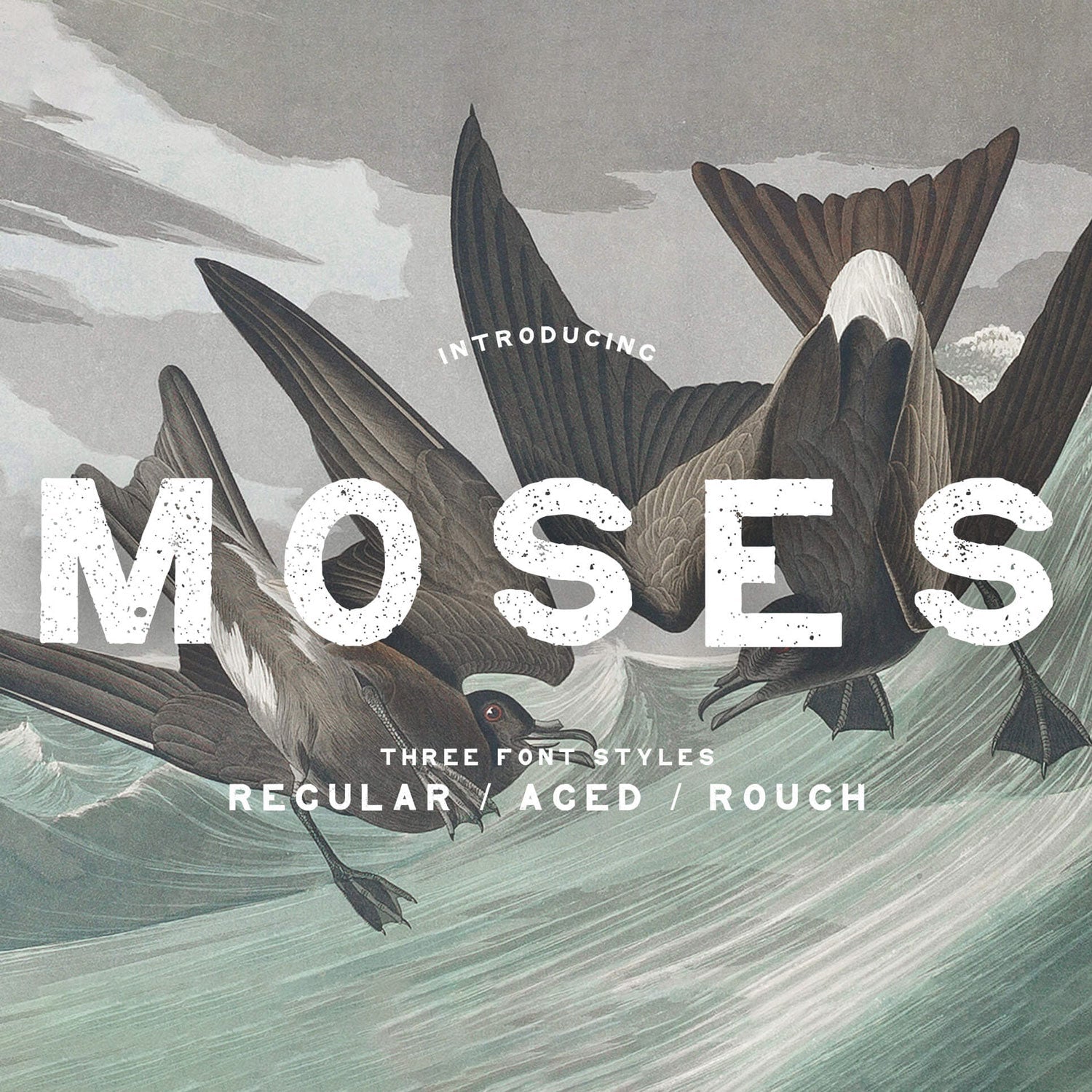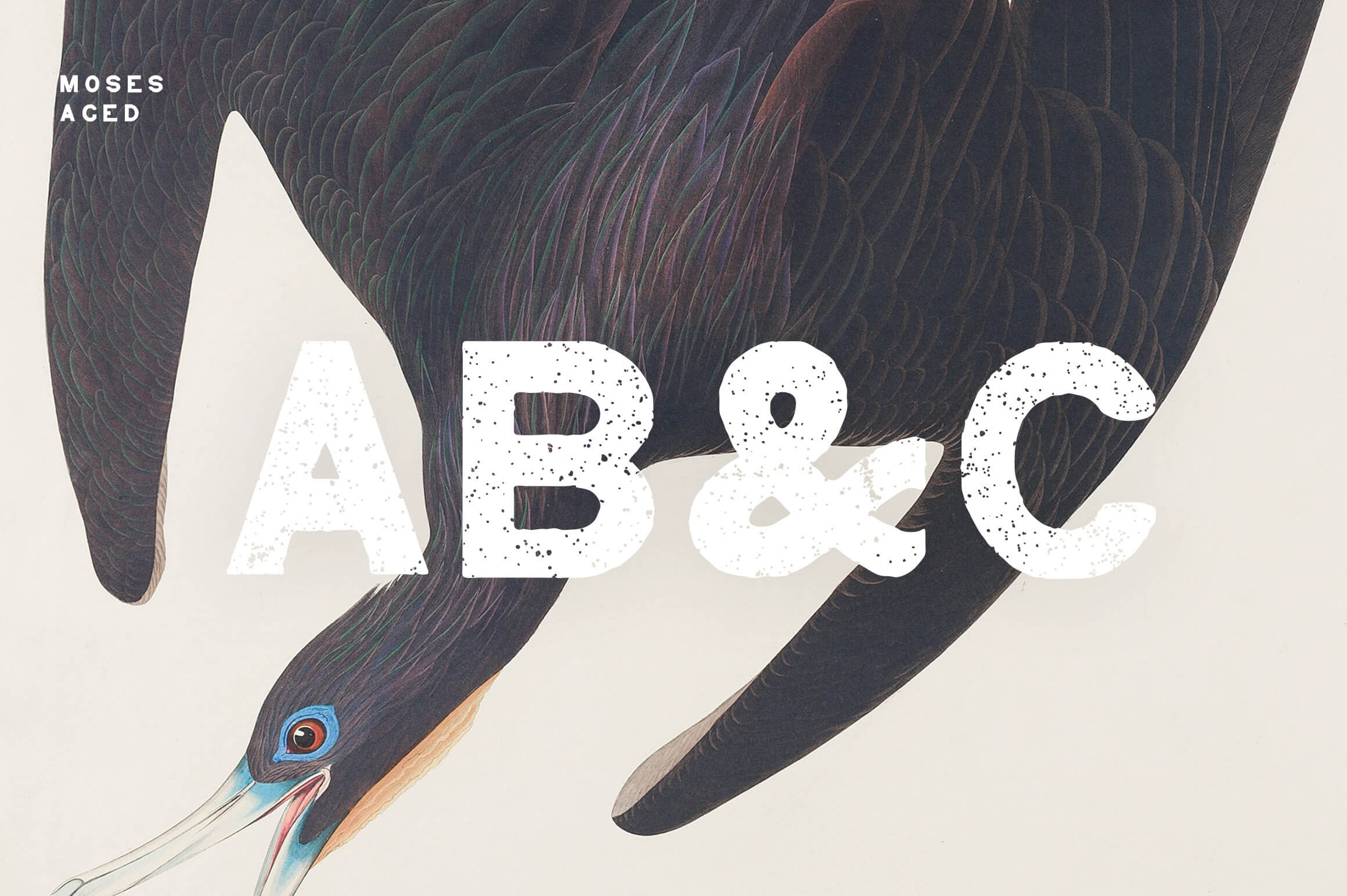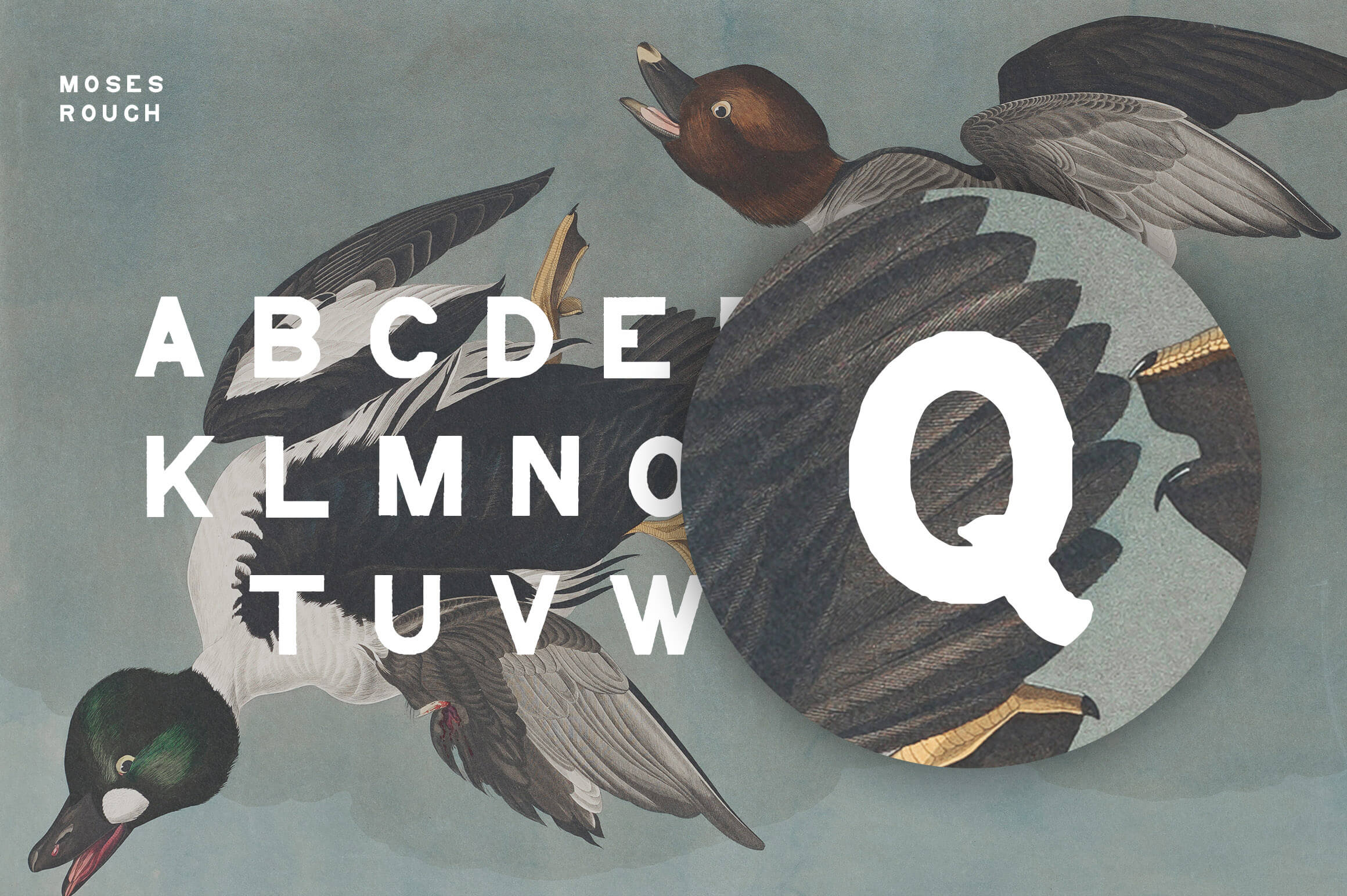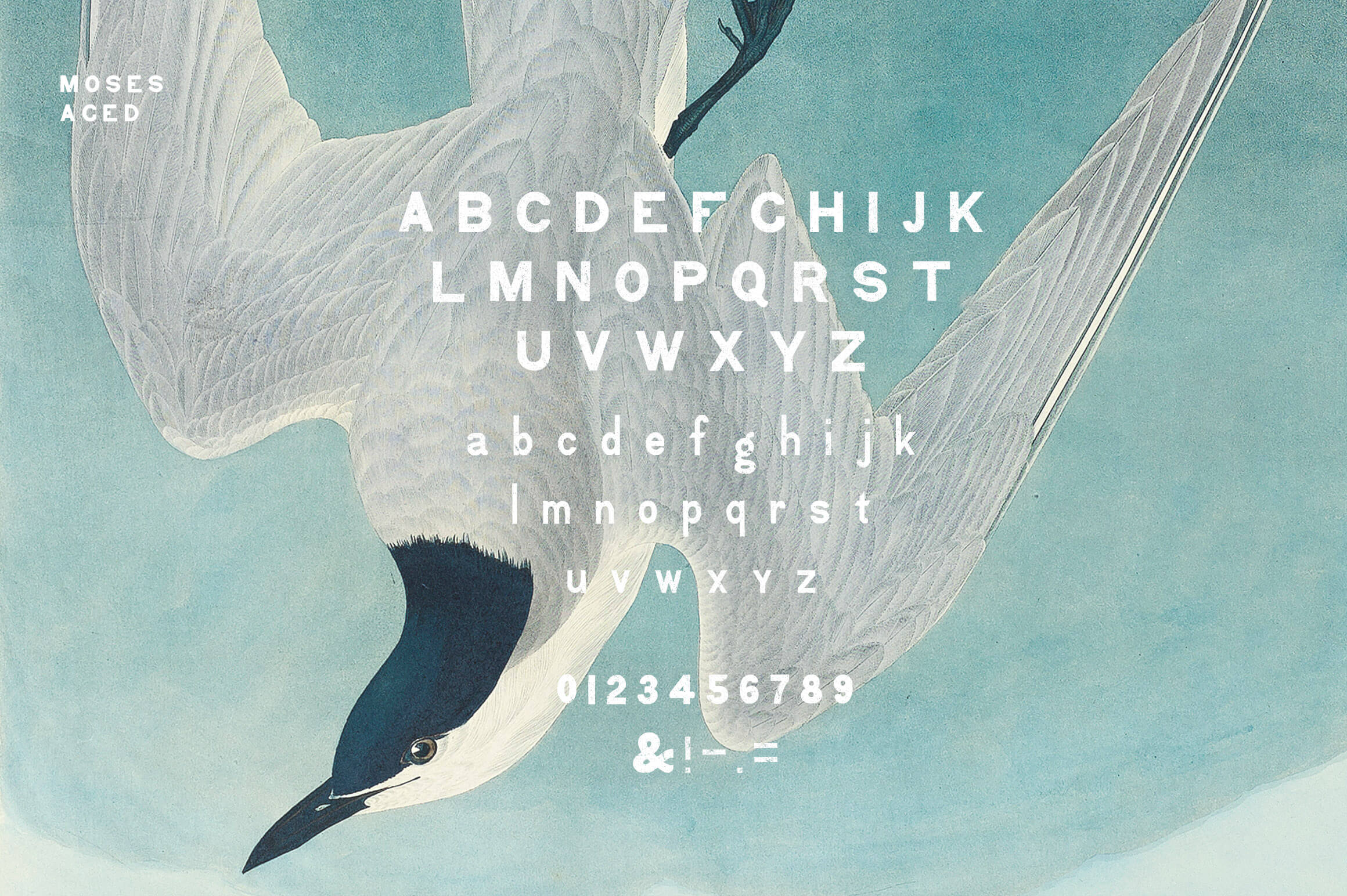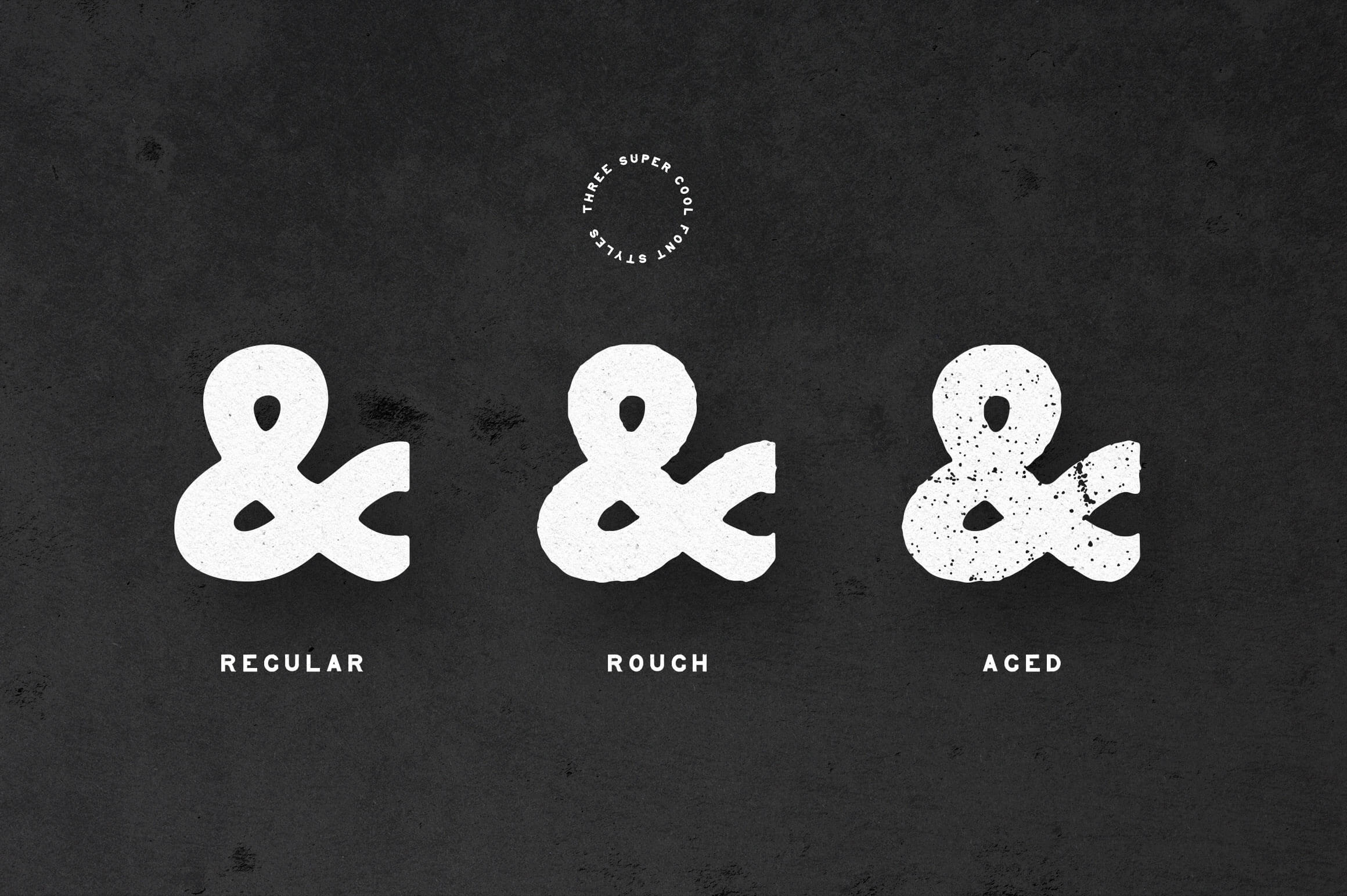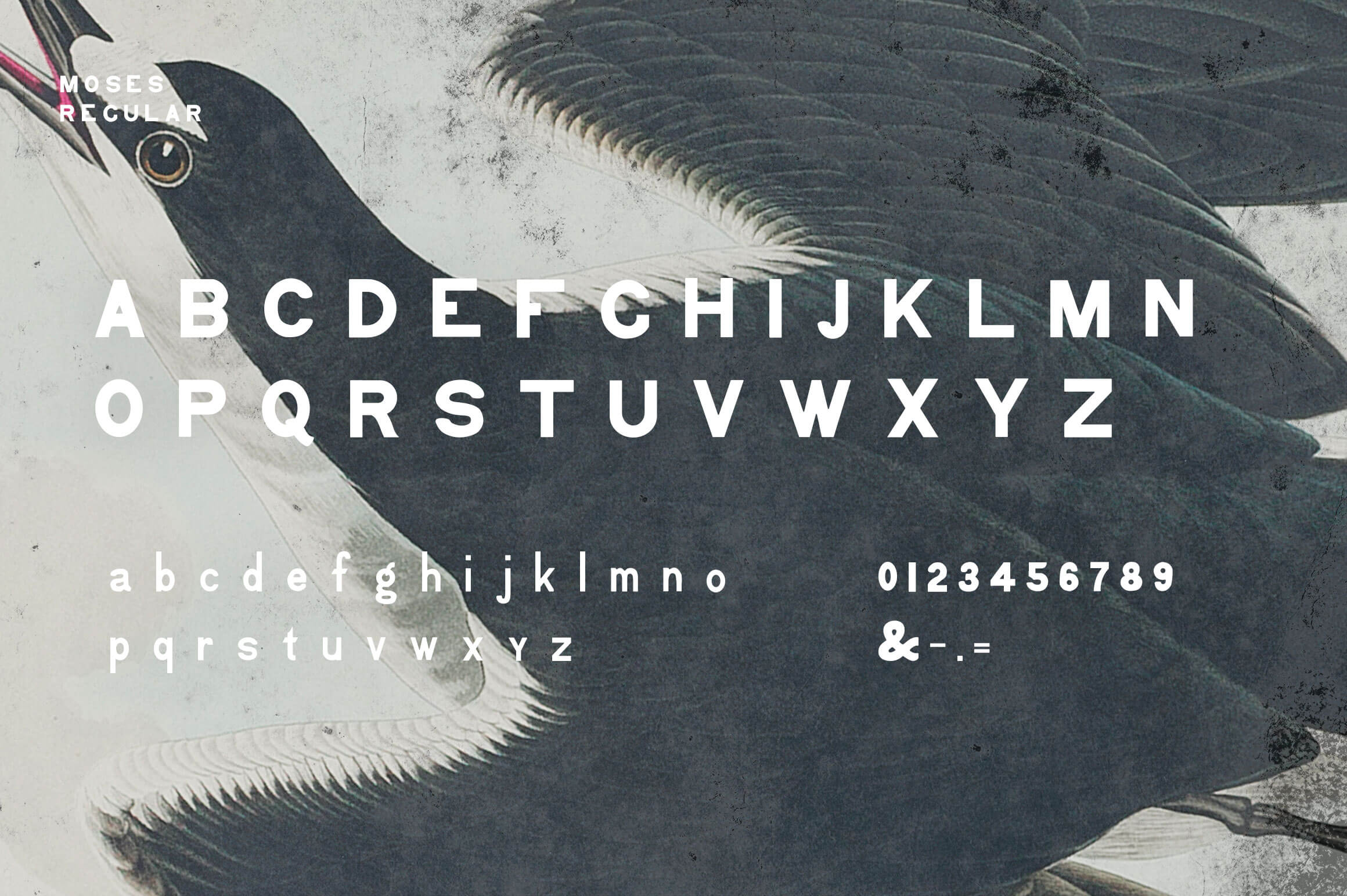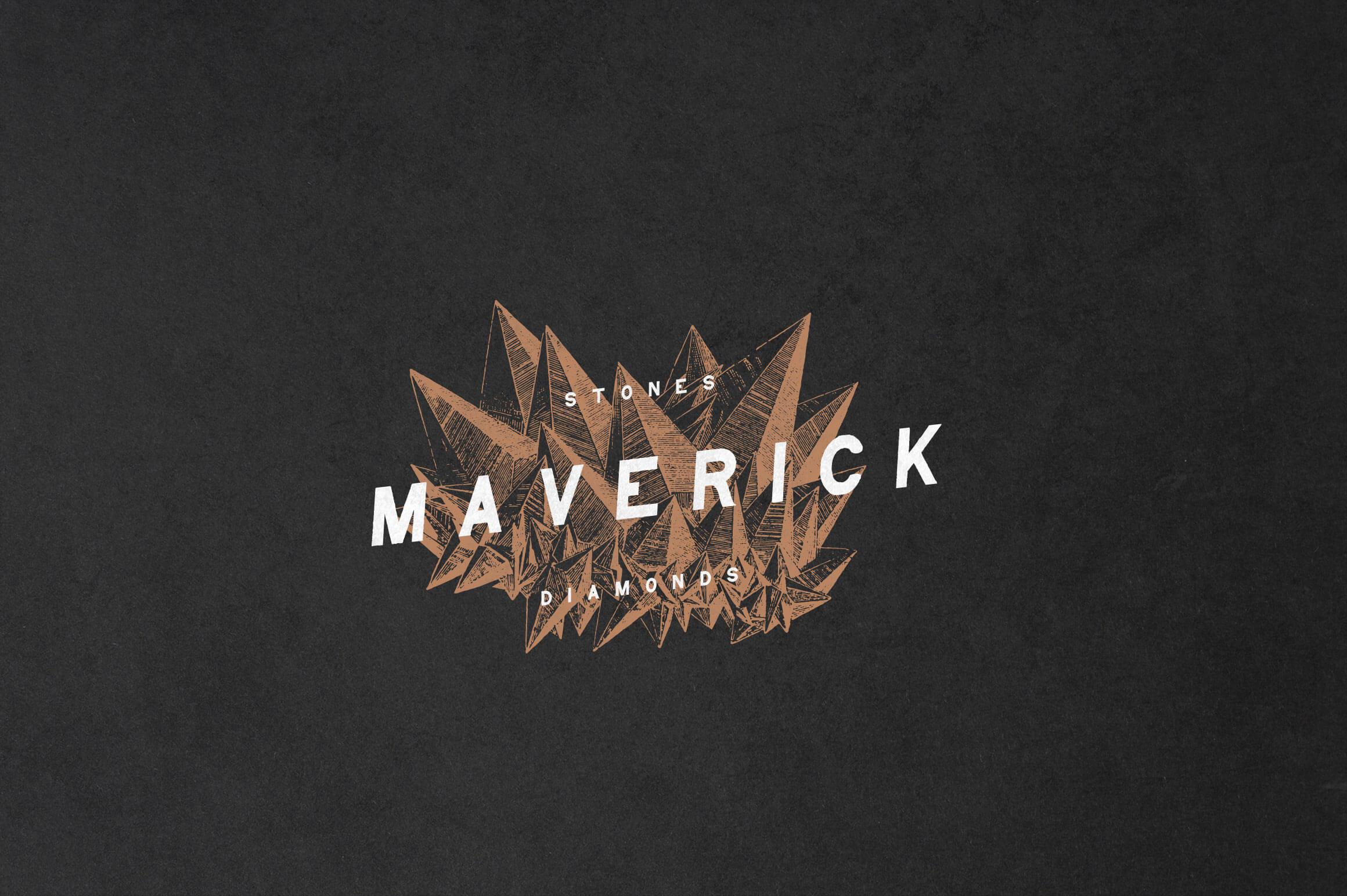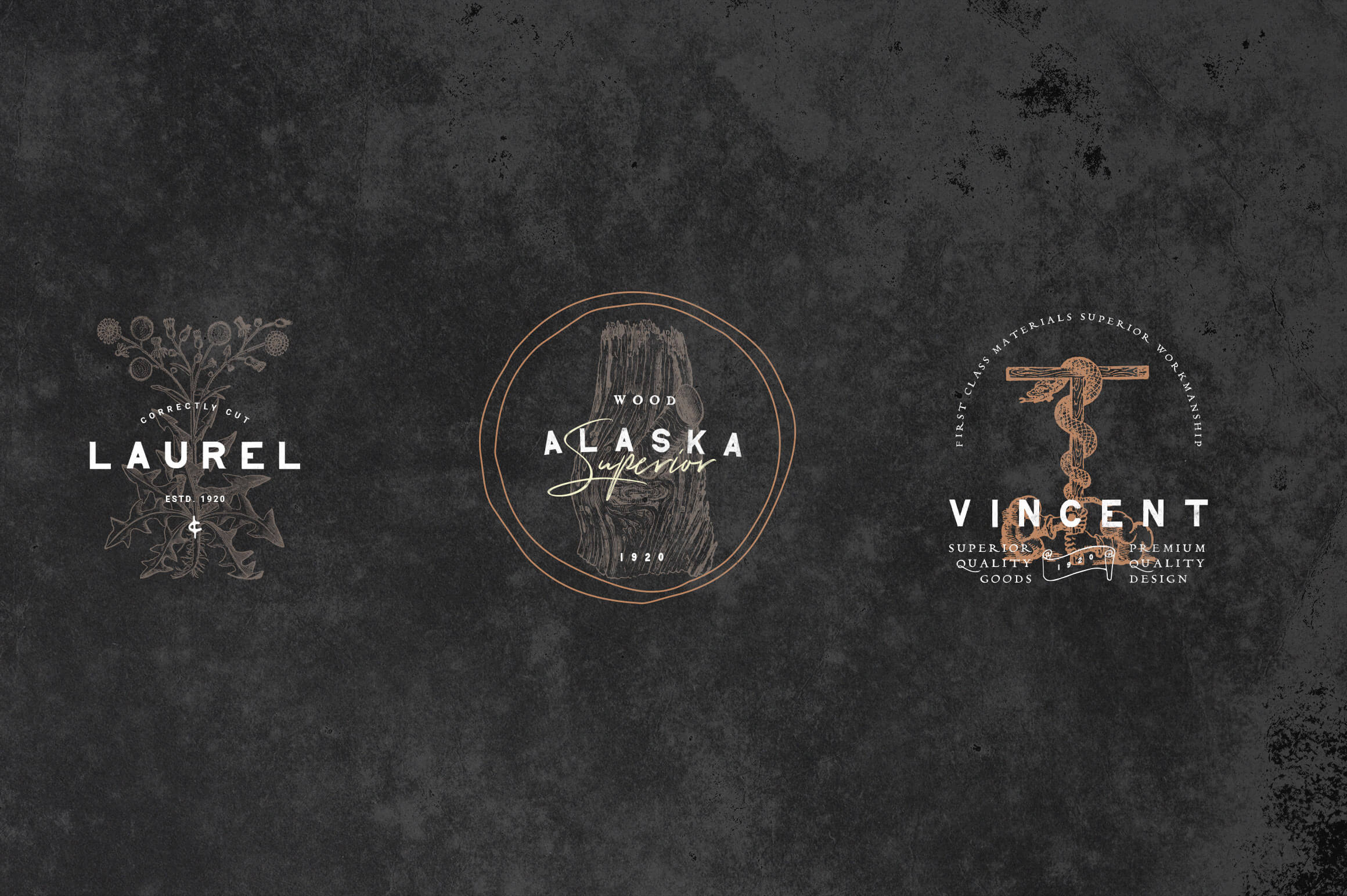
Moses Display Grotesque Typeface
The Moses Display Grotesque Typeface is an Egyptian style font available in three styles: Regular, Rough, and Aged. This bold, chunky font is designed primarily for display purposes, ideal for headlines and big titles, and includes numbers and a limited set of punctuation.
Ideal for vintage-inspired graphic design and branding projects. Perfect for posters, logos, and album covers, ensuring a bold and distinctive visual impact.